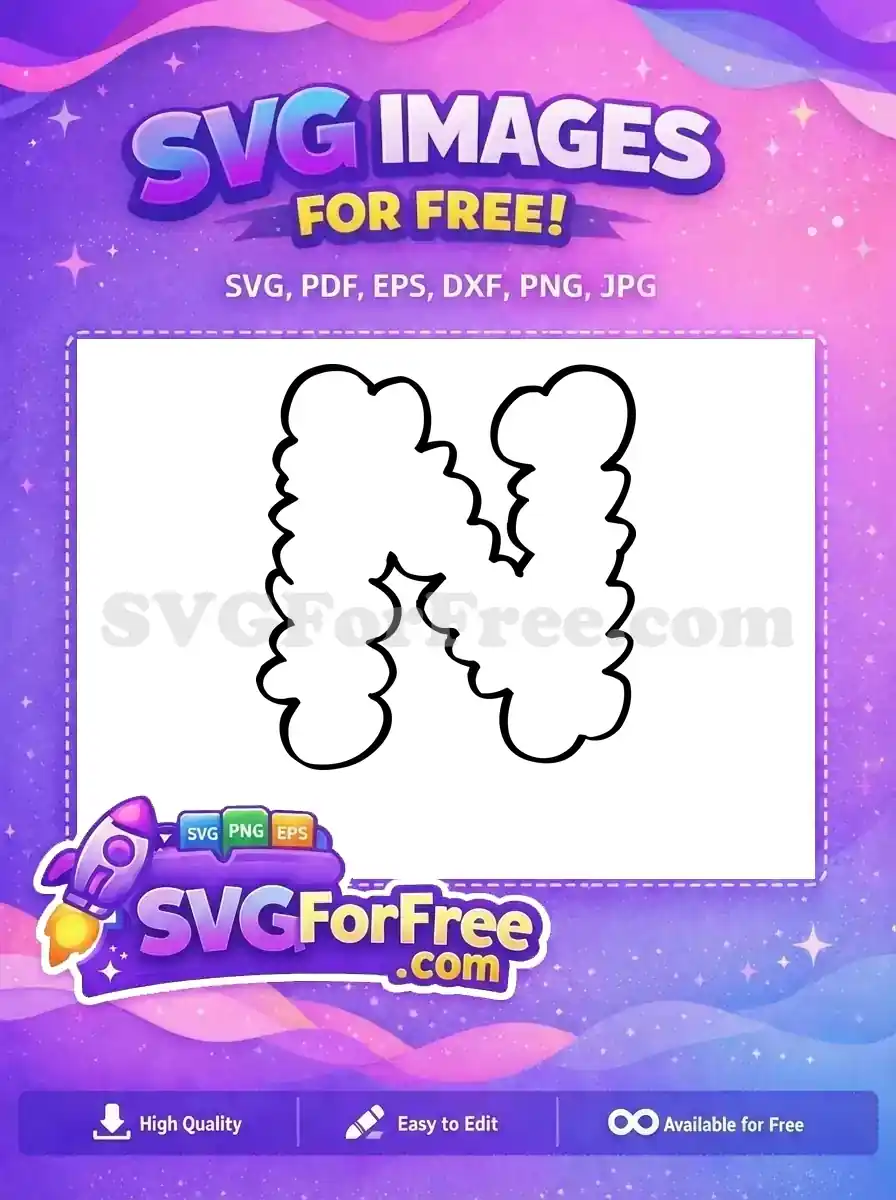
Free Letter N Font Free Cloud Style Alphabet Free SVG 2 – Instant Download
A capital ‘N’ design with a puffy, inflatable look created by a bumpy outline. Get this graphic for free.
Free Letter N Font Free Cloud Style Alphabet Free SVG 2